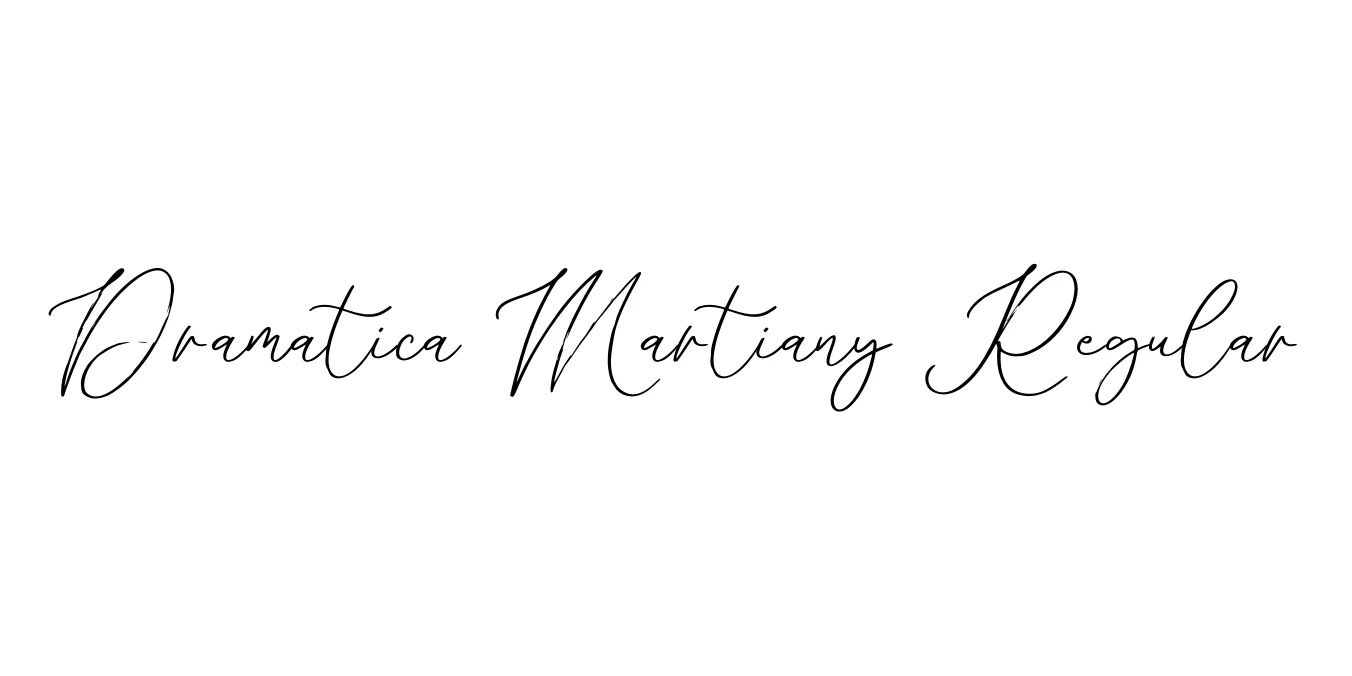
Dramatica Martiany Regular
Designed by Mevhibe
Dramatica Martiany Regular is a striking display typeface designed to bring a sense of theatrical intensity and vintage elegance to any creative project. The font is characterized by its sharp, deliberate strokes and unique anatomical quirks, which allow it to stand out in a crowded visual landscape. It effectively blends the charm of hand-lettered posters from the early 20th century with modern digital precision, making it a versatile tool for designers looking to tell a story through typography.
The Regular style focuses on high contrast and expressive geometry, ensuring that each letterform contributes to a cohesive, dramatic narrative. This font is particularly effective when used in large formats where its intricate details can be fully appreciated. From high-end fashion branding to experimental editorial layouts, Dramatica Martiany Regular offers a sophisticated yet edgy aesthetic that commands attention and evokes a powerful emotional response from the viewer.
Dramatica Martiany Regular Best Uses
Highly effective for cinematic titles and promotional artwork.
Creates a unique and memorable identity for luxury or artistic brands.
Perfect for magazine covers and large-scale headline features.
Ideal for theater productions, art exhibitions, and gallery openings.